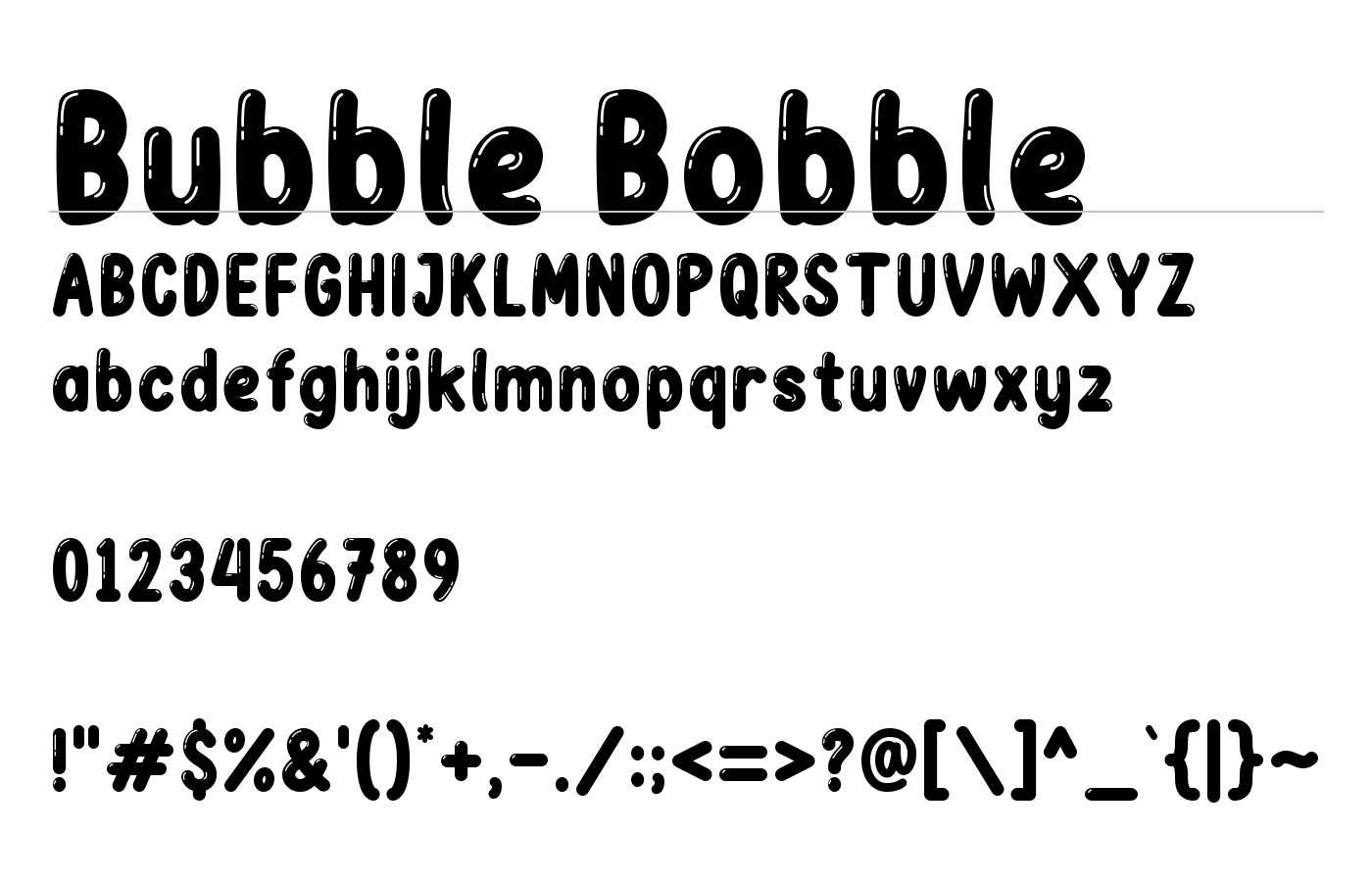
Bubble Bobble Font is a playful and bold rounded sans serif typeface with a chunky, bubbly feel that adds a fun, friendly vibe to any design. Its thick strokes and slightly irregular shapes give it a casual, approachable look perfect for children’s materials, games, and informal branding. This font works well for headlines, logos, and packaging where a lighthearted and energetic personality is desired.
Bubble Bobble Font
About Bubble Bobble Font
| Designer | Almarkha type 2020 - Abdul Malik Wisnu |